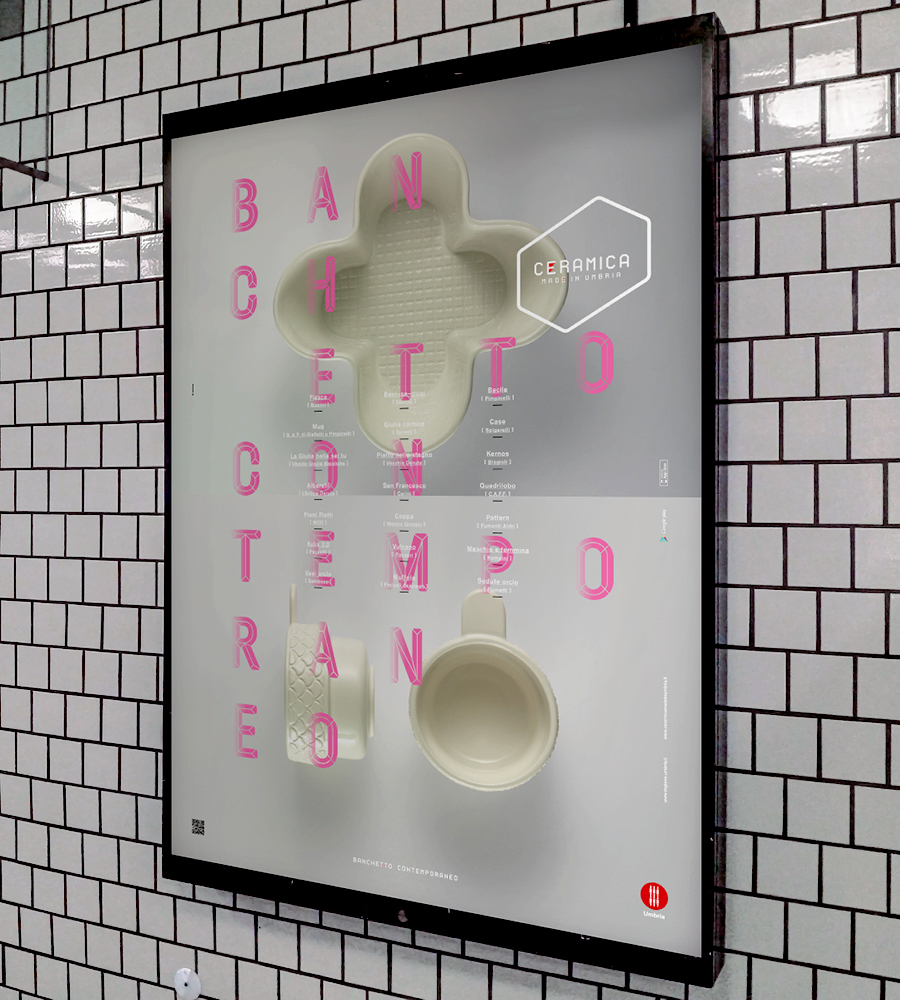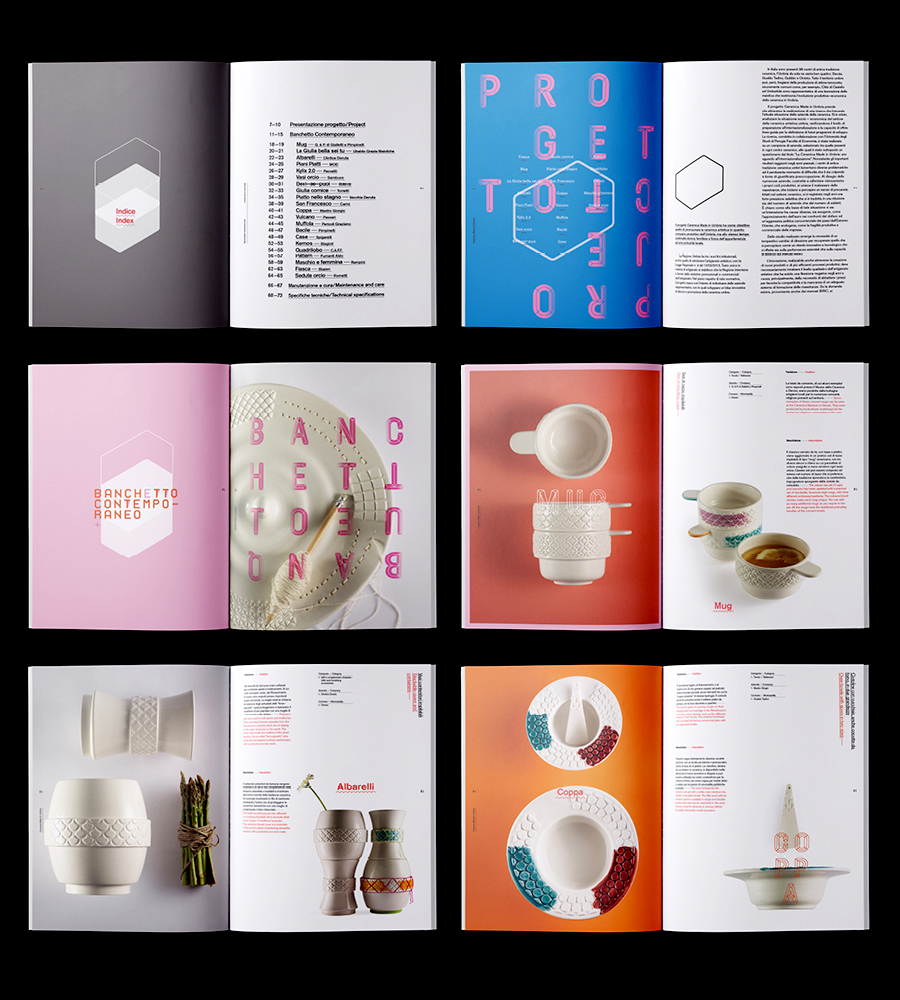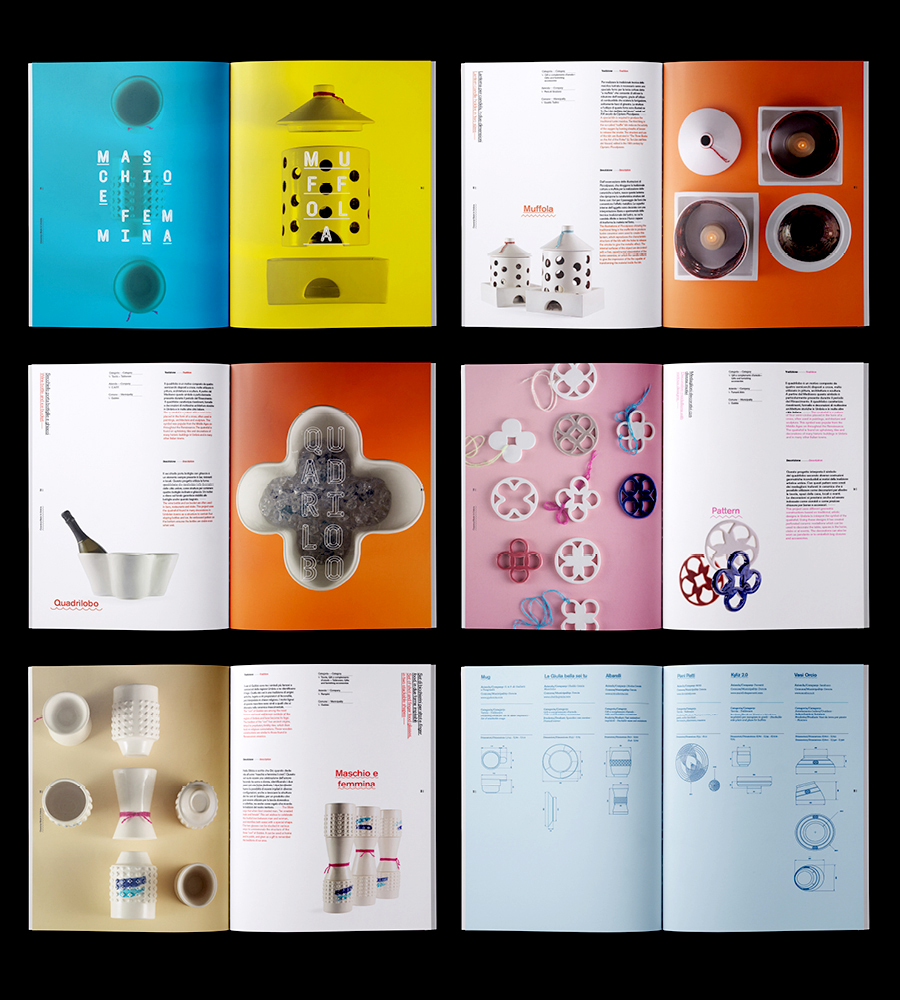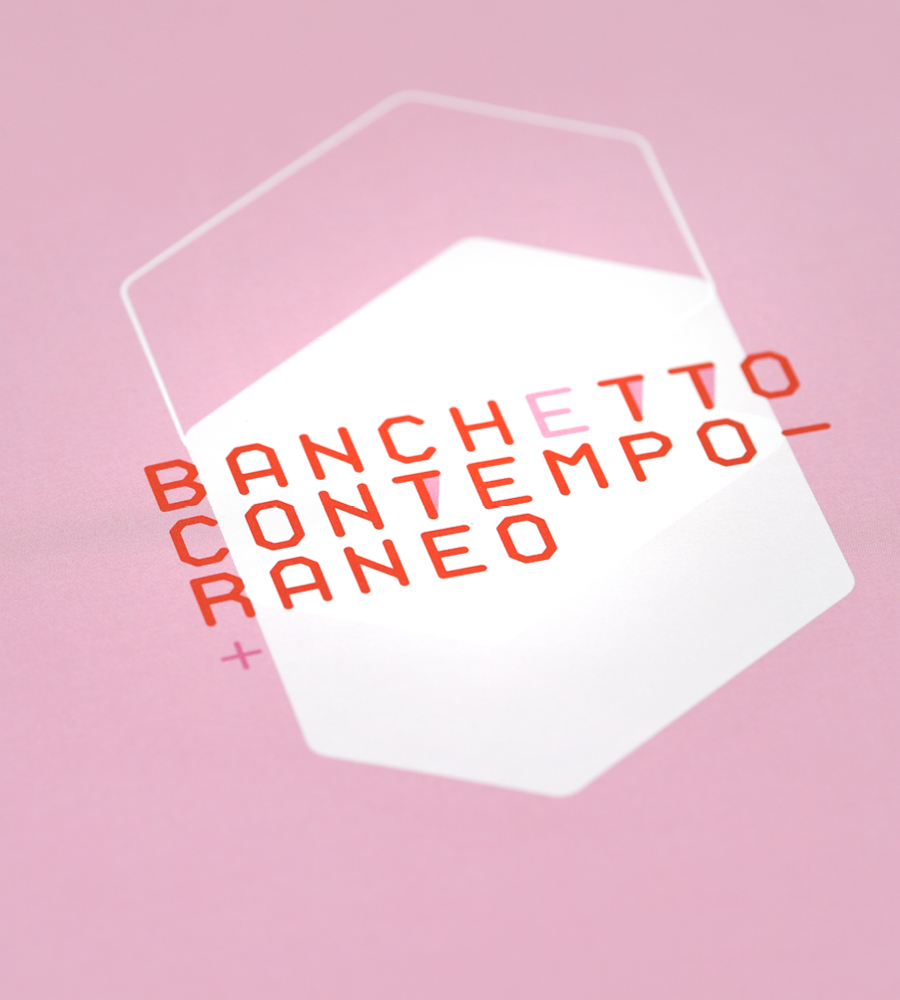
Ceramica Made in Italy
The brief was to design a brand identity, which would be recognizably part of the Regione Umbria but would still stand out from within the main brand as a playful bright spot. It had to appeal to both the consumer and the various stakeholders involved in the project.
Salt & Pepper designed a brand identity based around a bespoke typeface and stylistic photography. Developing a visual language that was used digitally and in print design. This visual language was developed, including a word mark, type, composition system, and a graphic language of textures and colours that reflect the highly tactile and sensual nature of the Ceramica in Umbria experience.